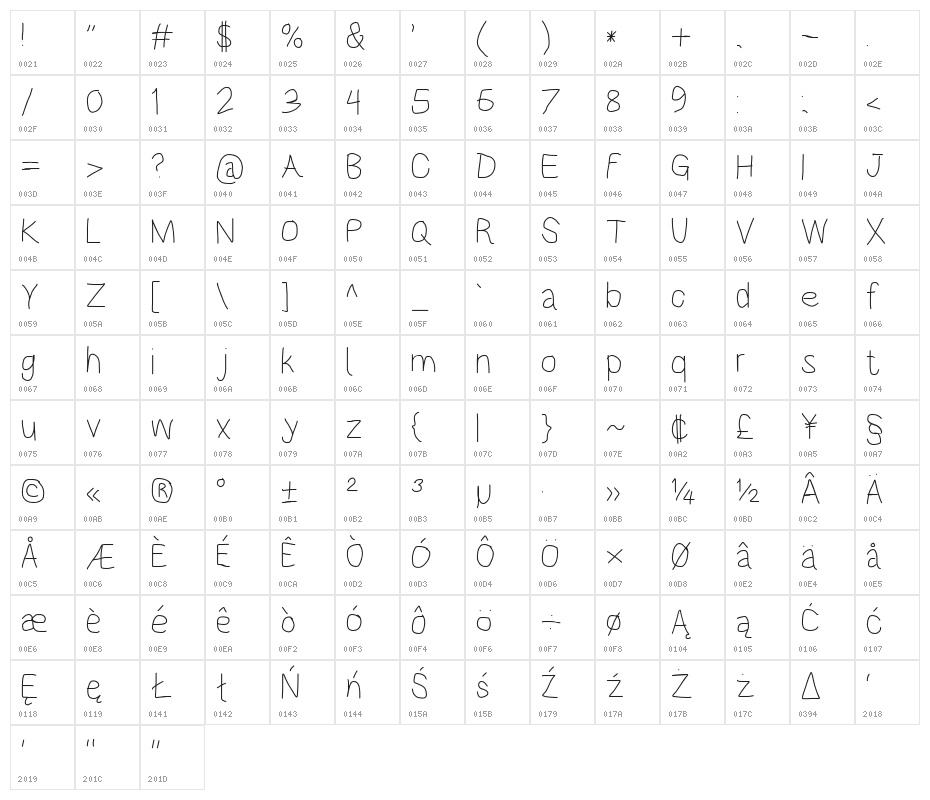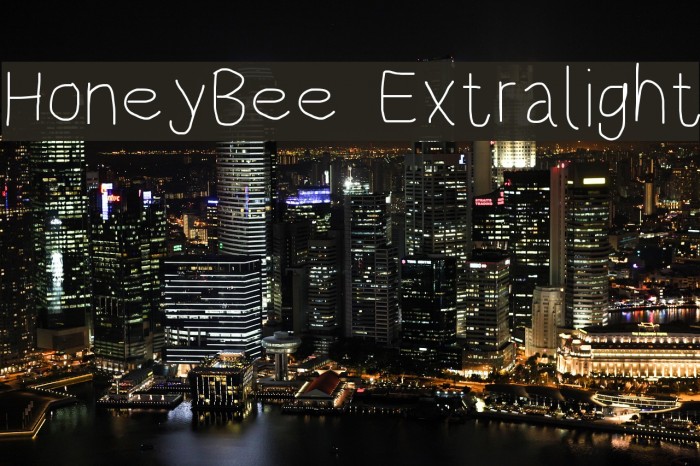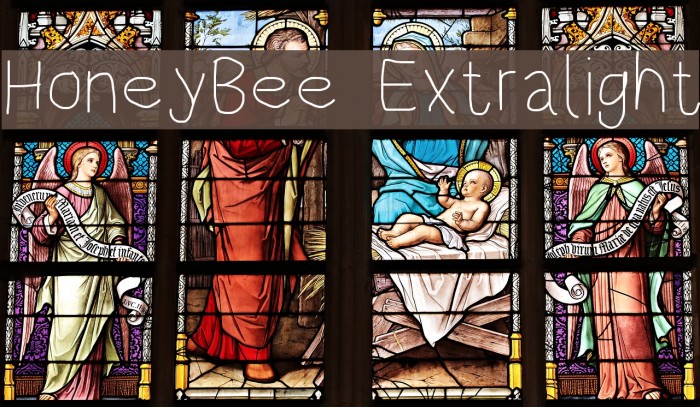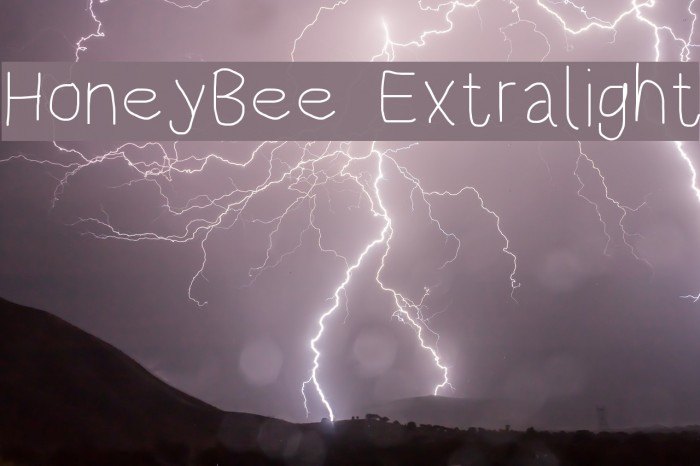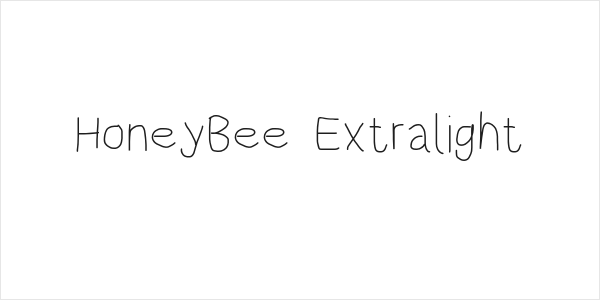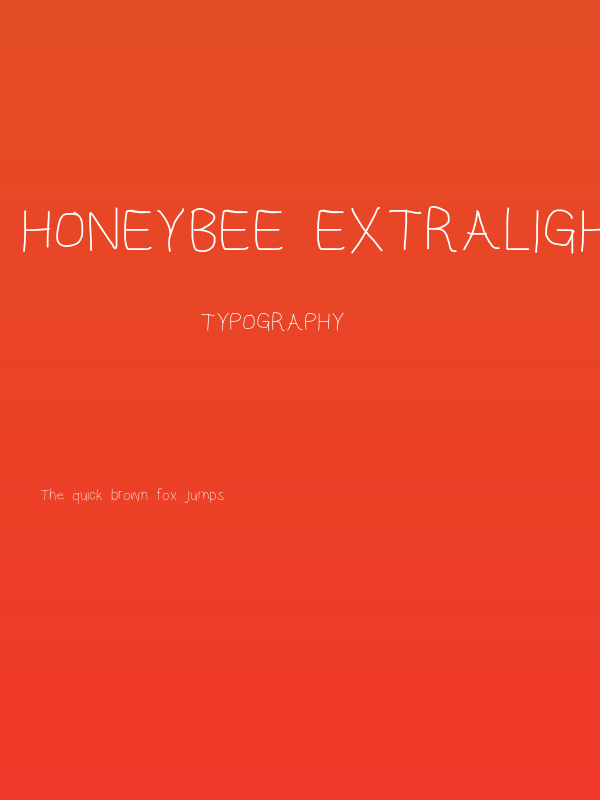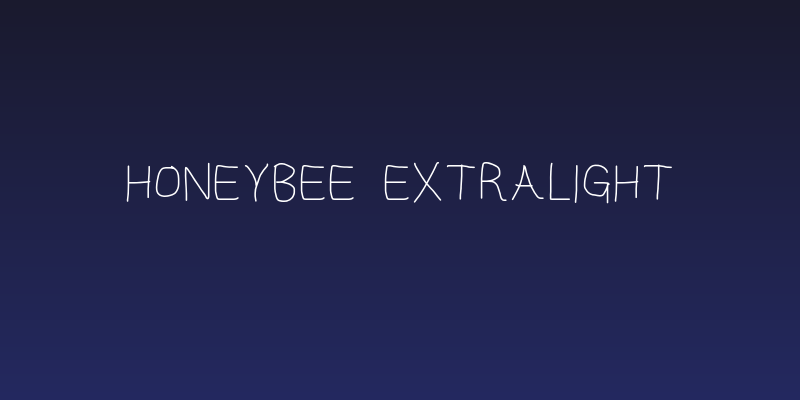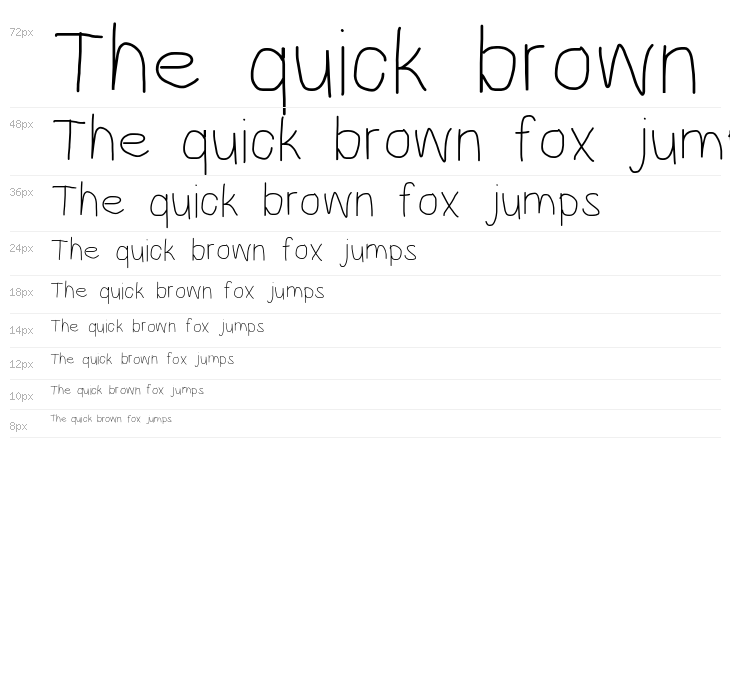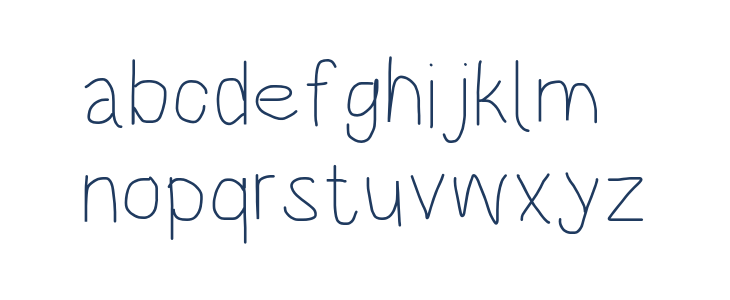
HoneyBee Extralight Font
HoneyBee Extralight Description
This font features a playful and whimsical design with a handwritten style. The characters are thin and elongated, giving an airy and light appearance. The strokes are consistent in width, contributing to a uniform look across all characters. The uppercase letters are slightly taller than the lowercase, maintaining a casual and approachable feel. The numerals and special characters follow the same design principles, ensuring cohesion throughout. This font is ideal for projects that require a personal touch or a friendly, informal vibe.